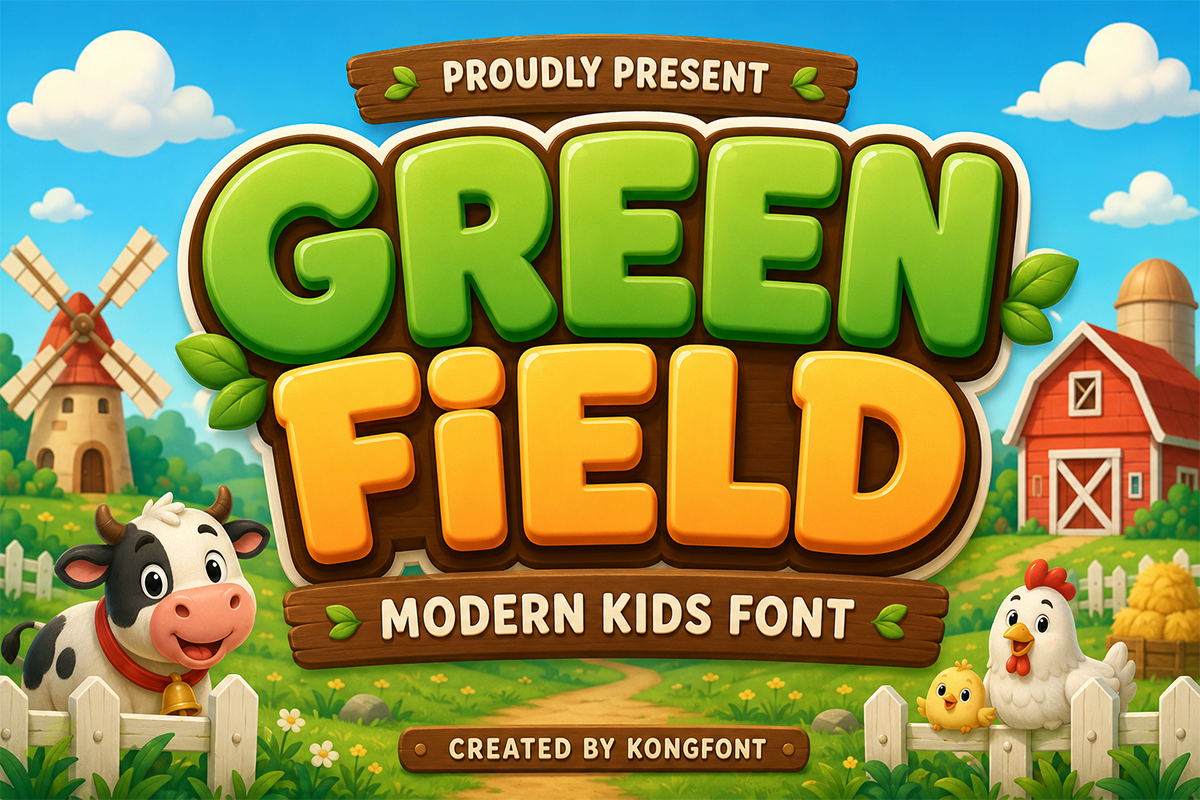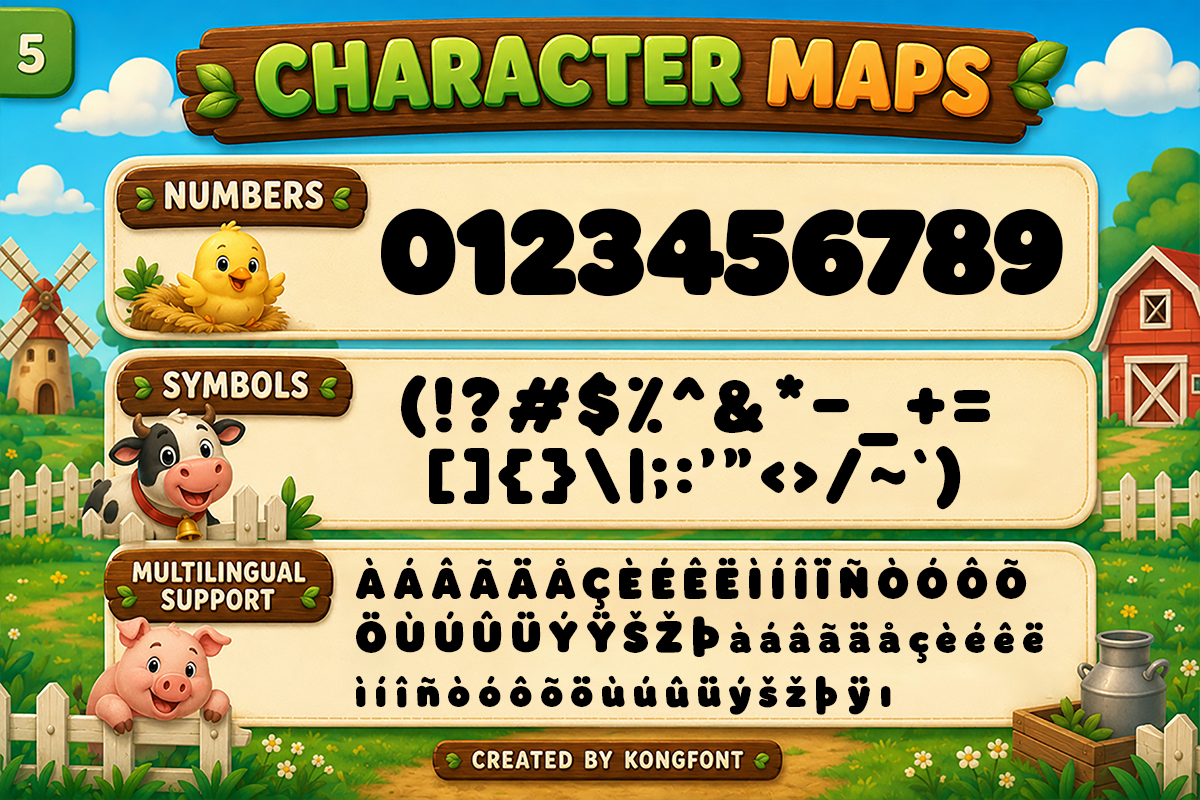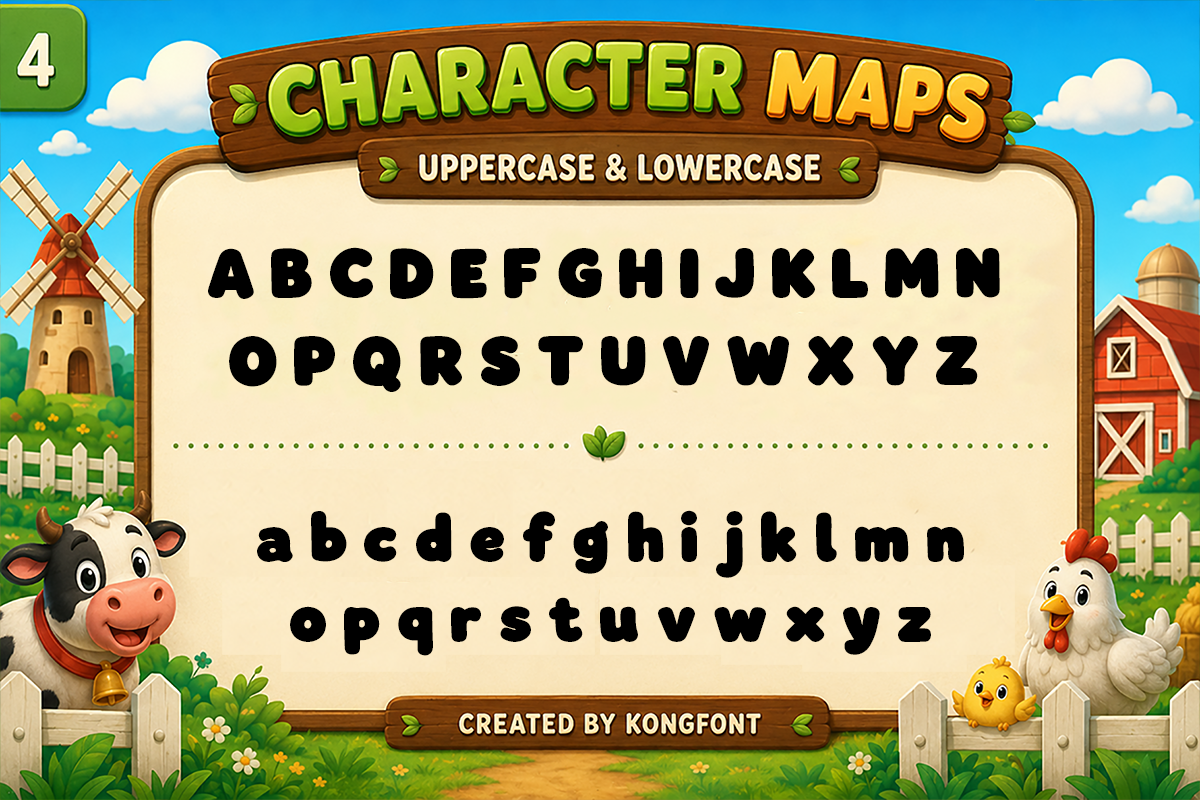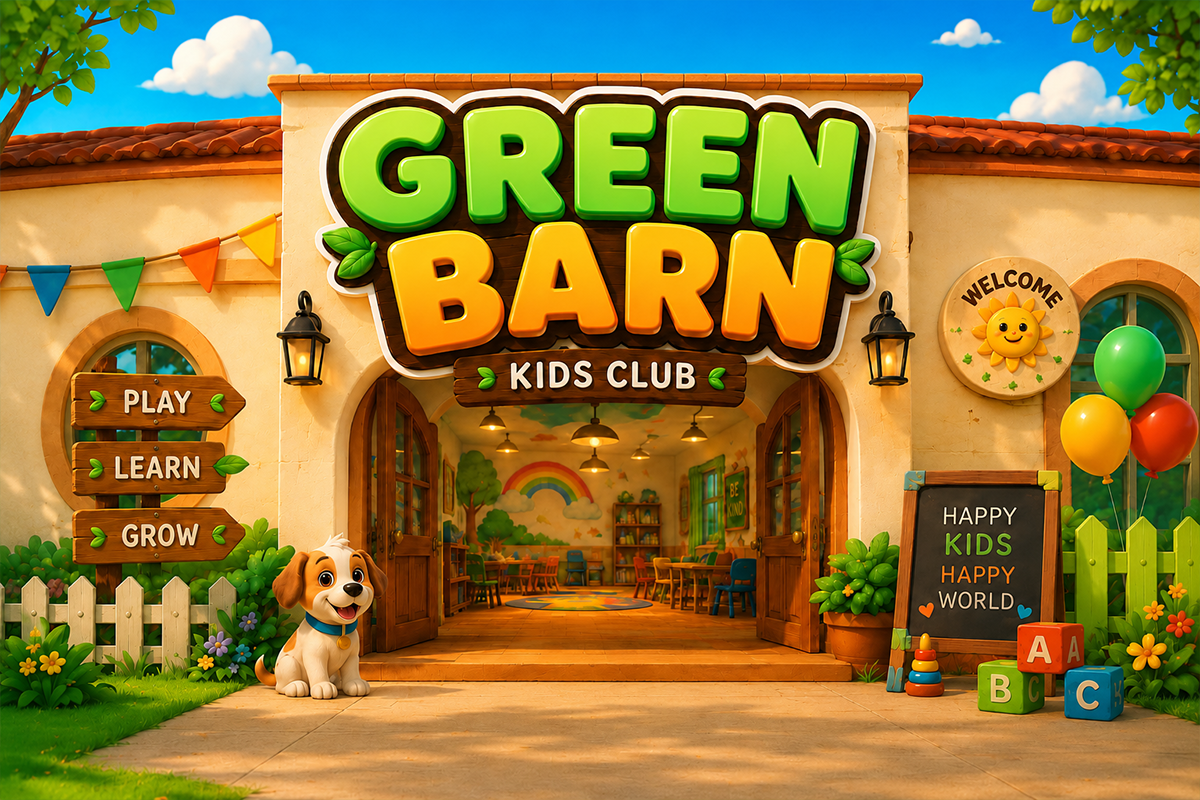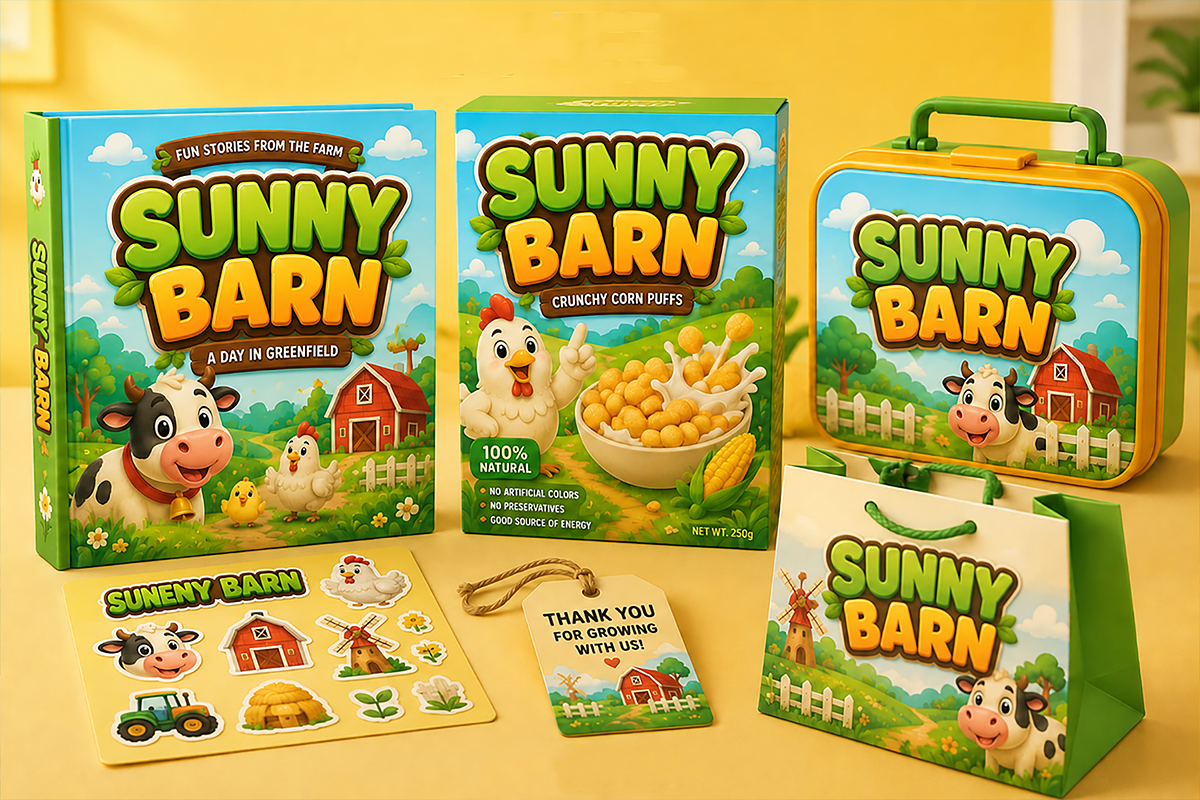
Green Field - Modern Kids Font
Green Field - Modern Kids Display Font
Introducing Green Field, a cheerful and modern kids display font inspired by peaceful countryside landscapes, happy farm animals, and playful adventures. Designed with bold rounded letterforms and a friendly personality, Green Field is perfect for creating eye catching designs that spark imagination and joy for children of all ages.
Whether you're designing children's books, educational worksheets, farming games, toy packaging, classroom decorations, logos, posters, birthday invitations, social media graphics, or fun merchandise, Green Field delivers a bright and approachable style with outstanding readability. The font includes uppercase and lowercase letters, numbers, punctuation, multilingual support, and essential symbols, making it a versatile choice for both print and digital projects.